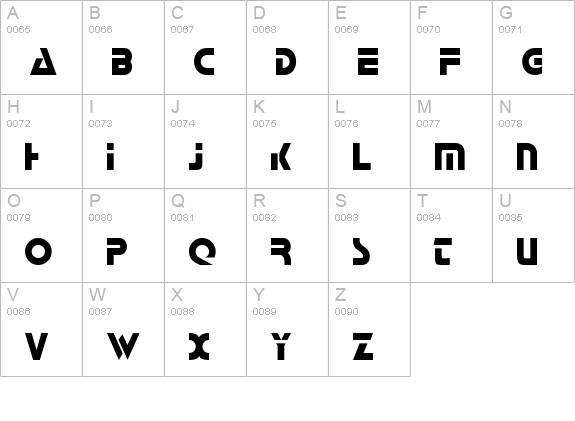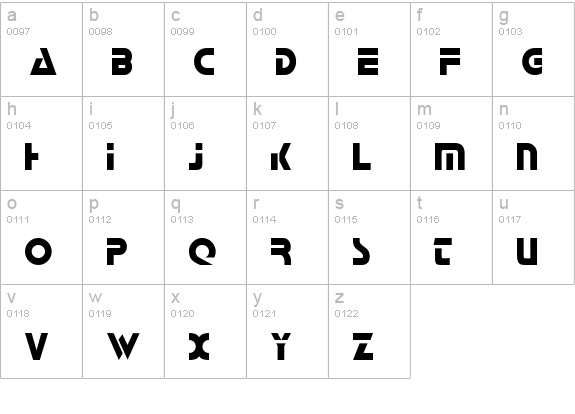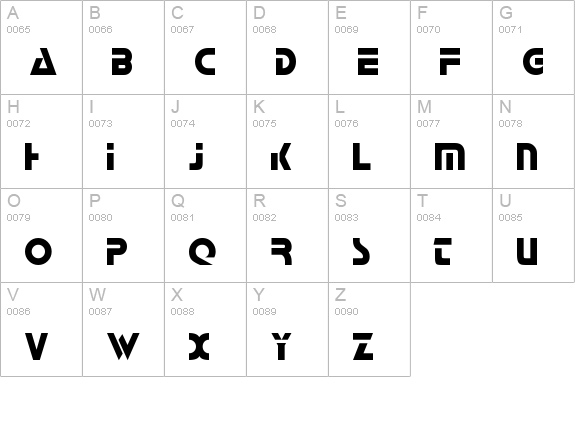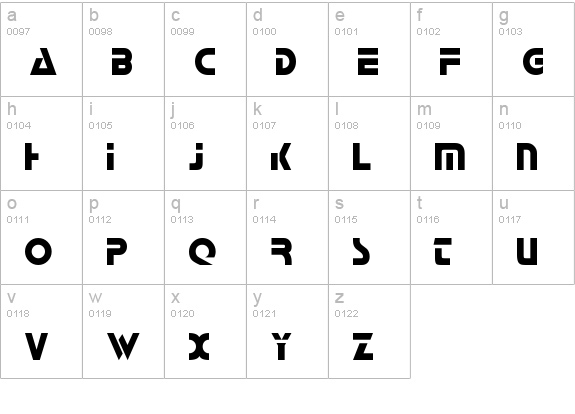
Galactican Font Details
Introducing Galactican font, a mesmerizing typeface that will transport your designs to a whole new galaxy of creativity. This font is the perfect fusion of futuristic elegance and timeless appeal, making it ideal for a wide range of projects. Galactican font features sleek and streamlined letterforms, with a hint of otherworldly charm. Its clean lines and balanced proportions create a sense of harmony, while its unique details add a touch of sophistication. Whether you're designing a logo, a poster, or a website, Galactican font will effortlessly elevate your work to celestial heights. One of the most remarkable aspects of Galactican font is that it is freely available to download at FontsMarket.com. This means that you can unleash your imagination without any barriers, as this font is accessible to all. Embrace the freedom to experiment, explore, and create without restrictions, all thanks to Galactican font. With its extensive character set, Galactican font offers versatility and flexibility. It includes uppercase and lowercase letters, numbers, punctuation marks, and special characters, allowing you to fully express your vision. Whether you're aiming for a bold statement or a subtle touch, Galactican font has the versatility to adapt to any design concept. The futuristic aesthetic of Galactican font is further enhanced by its smooth curves and meticulous attention to detail. Each letter is meticulously crafted to exude an air of modernity and sophistication. From its captivating capitals to its graceful lowercase forms, Galactican font is a true work of art that will captivate your audience. Whether you're a graphic designer, a typographer, or a creator in any medium, Galactican font is a must-have in your toolkit. Its striking presence will make your designs stand out from the crowd, leaving a lasting impression on viewers. So, why settle for ordinary when you can soar among the stars? Download Galactican font for free at FontsMarket.com and unlock the limitless possibilities that await. Let your imagination take flight and create designs that are truly out of this world with Galactican font.